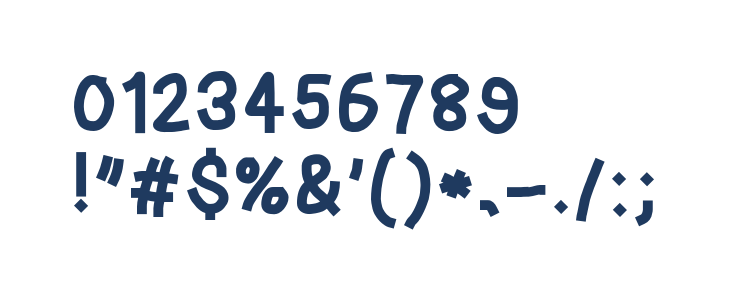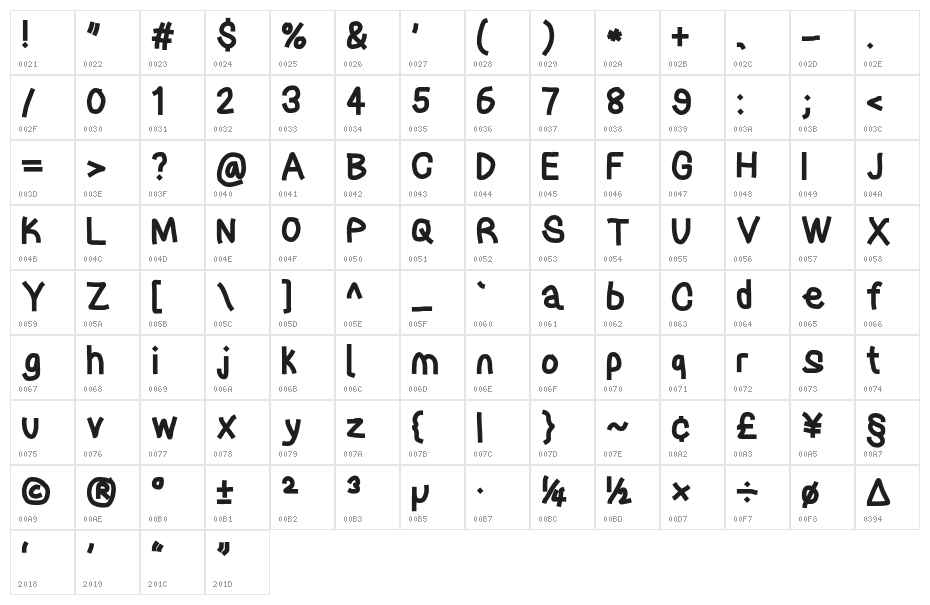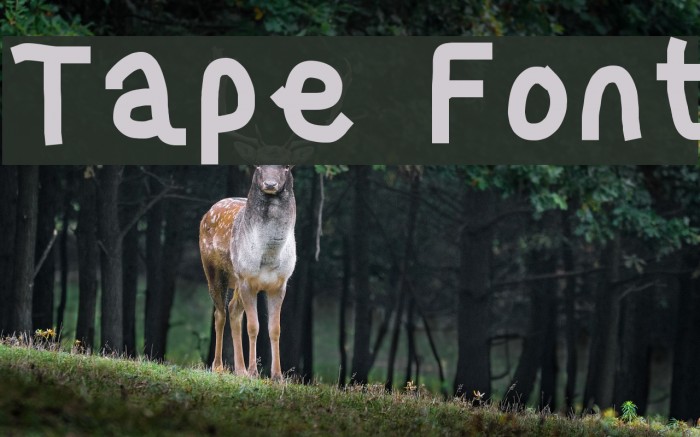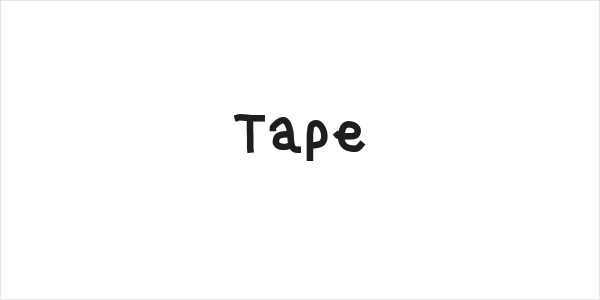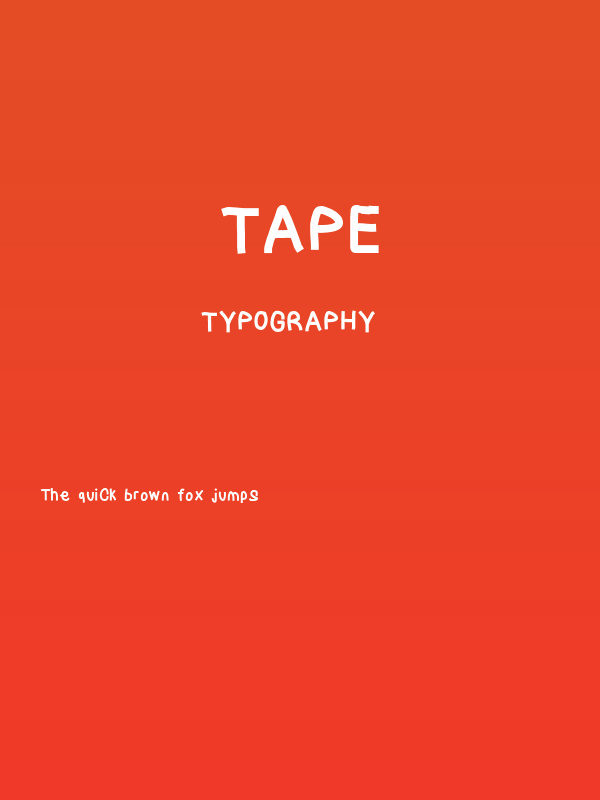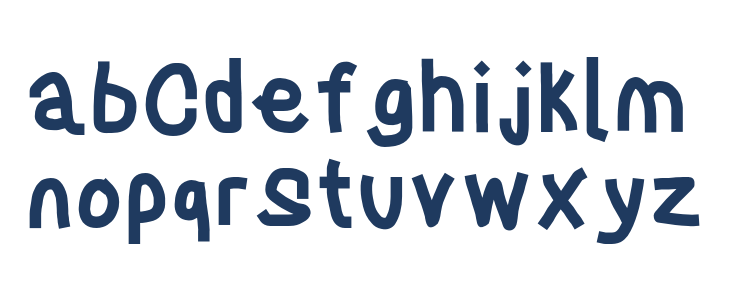
Tape Font
Tape Description
This font features a playful and bold style with a hand-drawn appearance. The characters are slightly irregular, giving it a casual and informal look. The uppercase and lowercase letters maintain a consistent weight, contributing to its boldness. The numbers and special characters follow the same quirky design, making it suitable for creative projects. The font's unique charm lies in its uneven strokes and slightly tilted characters, which add a dynamic and lively feel. It's perfect for projects that require a fun and approachable aesthetic.
| Proposed Projects | Ideal for children's books, playful branding, posters, and creative invitations. |